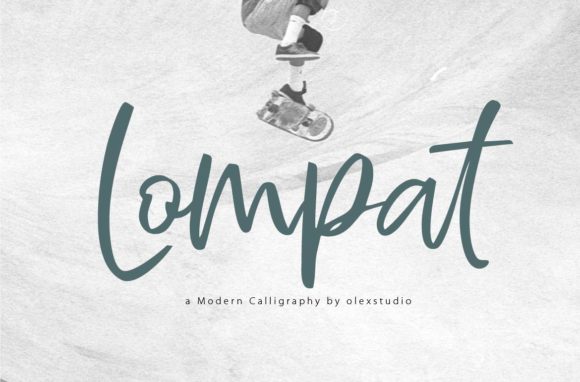
Welcome to the world of Lompat Font, where elegance and charm intertwine to create a striking visual symphony. Immerse yourself in the beauty of this script font, crafted with meticulous attention to detail, making it an exceptional choice for designers and creatives seeking a captivating touch. Experience the allure of Lompat Font, a whimsical and vibrant handwritten font that dances across your designs with grace and style.
Lompat Font possesses an inherent allure, its flowing strokes and playful curves adding an irresistible charm to your creative endeavors. Indulge in the limitless possibilities it offers, transforming ordinary text into captivating headlines, enchanting logos, or eye-catching social media graphics that captivate audiences. Unleash the power of Lompat Font, and witness how it effortlessly elevates your designs to new heights of sophistication.
Dive into a world of endless creativity with Lompat Font, the ultimate font for fashion logos. Its inherent chicness and effortless charm make it the perfect choice for designers looking to create logos that embody grace and style. Lompat Font's innate ability to convey elegance and sophistication will ensure your fashion logos stand out from the crowd, capturing the attention of your target audience and leaving a lasting impression.